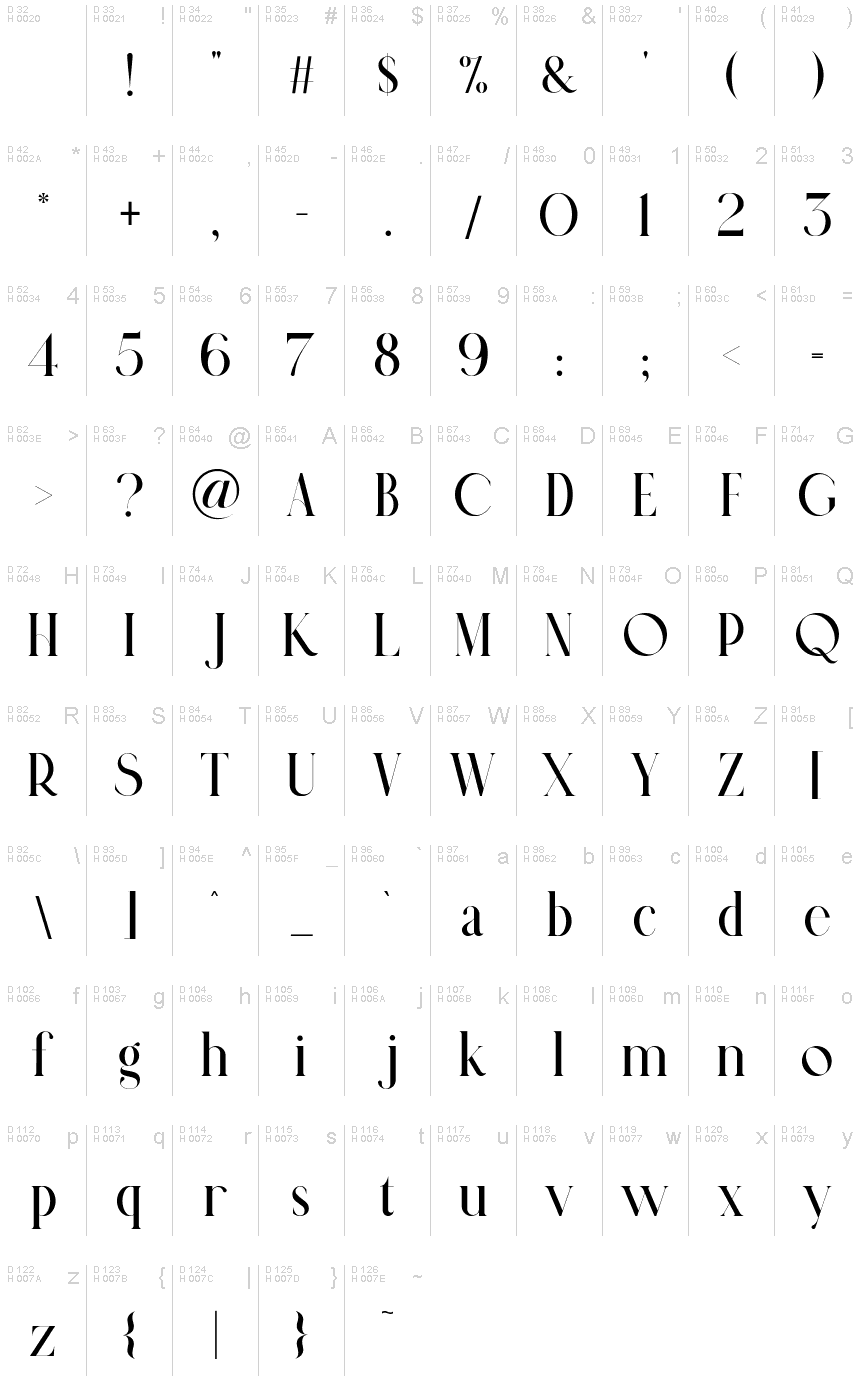
Oruguitas
Oruguitas, the latest serif font designed by PremiereGraphics, is not just a mere typeface. It's an experience that transforms your project into a masterpiece. This font's elegant curves and refined lines make it perfect for book covers, invitations, and even fashion magazines. The semi-bold width of Oruguitas adds a touch of sophistication to every design, making it suitable for branding materials such as logos and business cards. Its versatile nature also makes it ideal for website headings and social media posts. With Oruguitas, you can elevate your project to another level entirely.